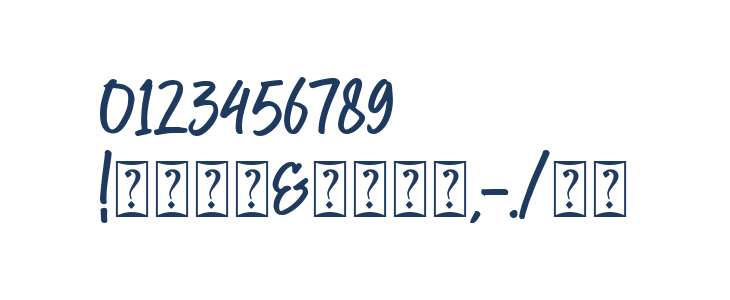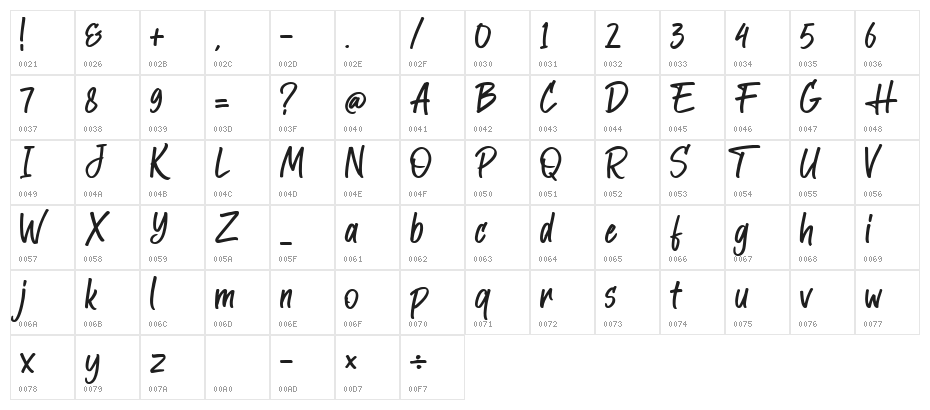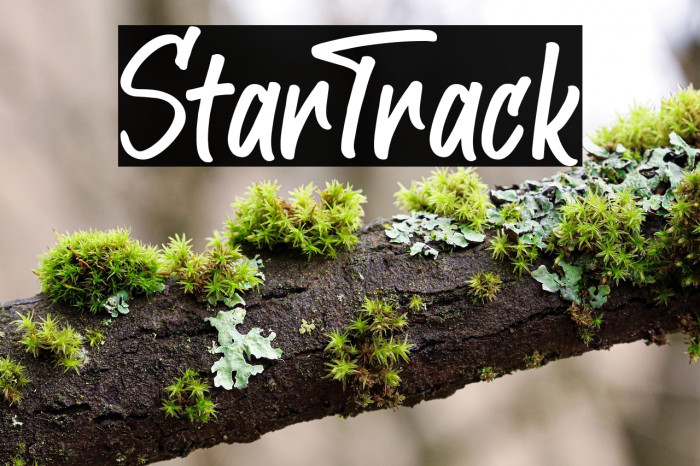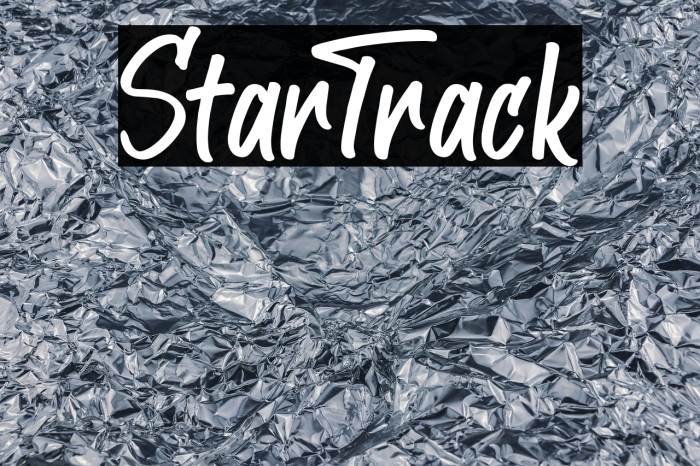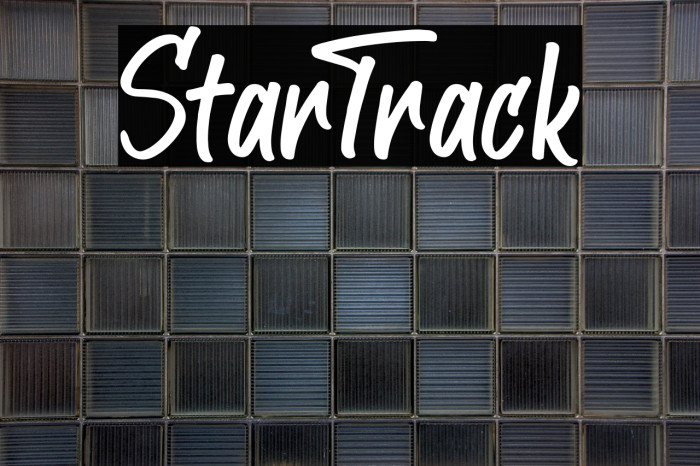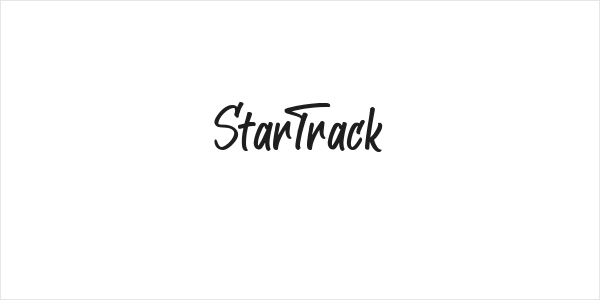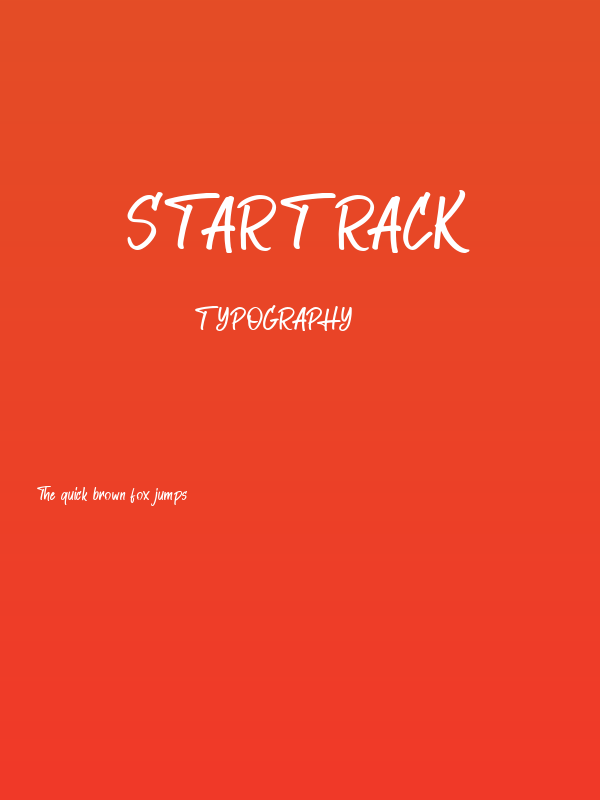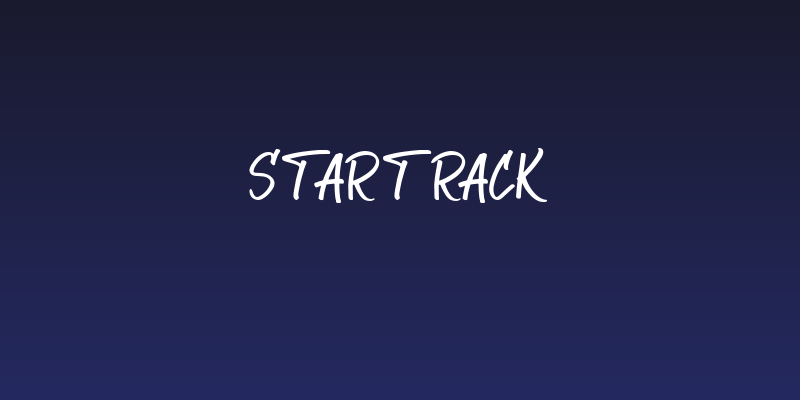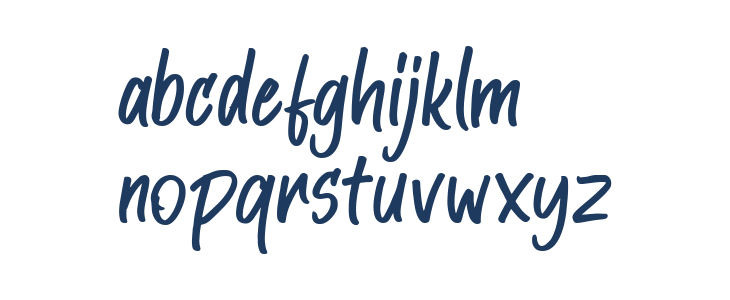
StarTrack Font
StarTrack Description
This font features a lively and energetic handwritten style, characterized by its fluid and dynamic strokes. The letters are slightly slanted, giving a sense of movement and spontaneity. The uppercase and lowercase letters maintain a consistent style, with rounded edges and varying stroke widths that add to its casual and approachable feel. The numerals and special characters are crafted with the same playful touch, making them cohesive with the overall design. This font is ideal for projects that require a personal and informal touch, such as invitations, greeting cards, or creative branding.
| Overall Style | Casual |
| Proposed Projects | Ideal for invitations, greeting cards, creative branding, and personal projects. |